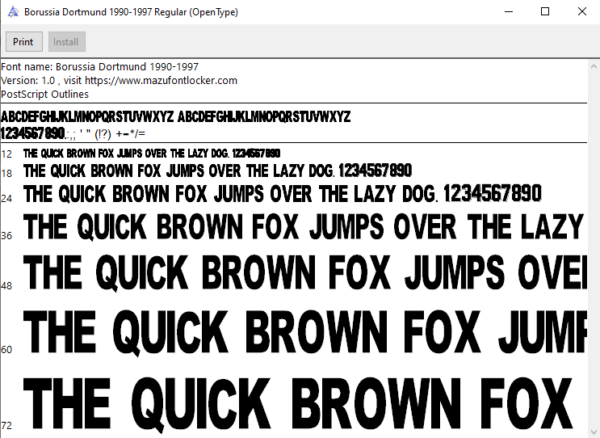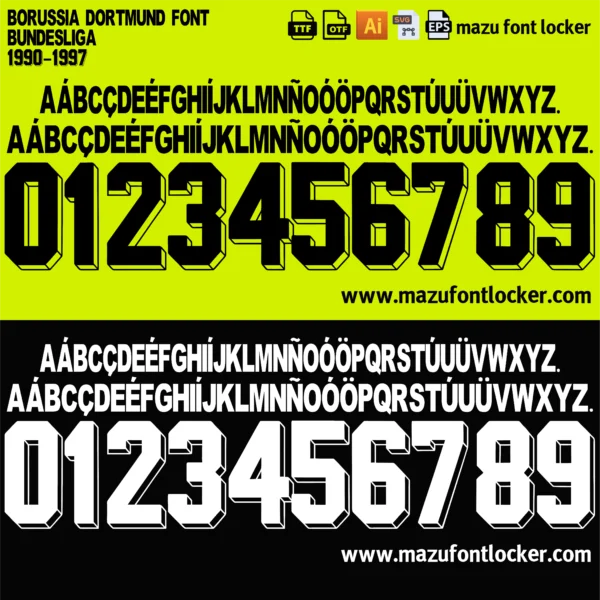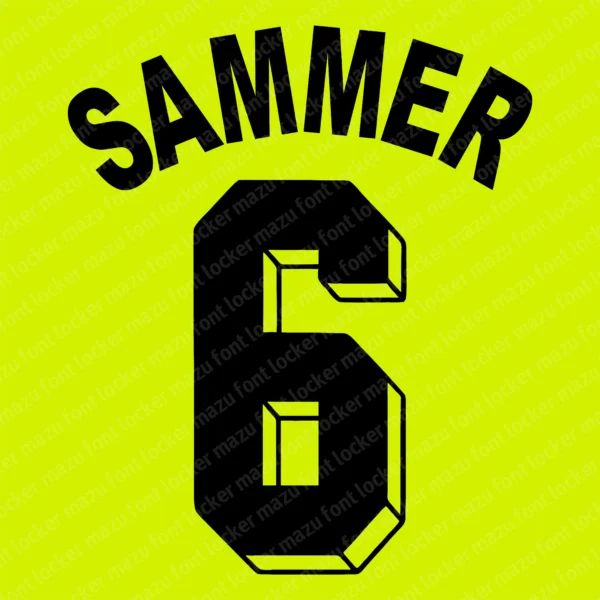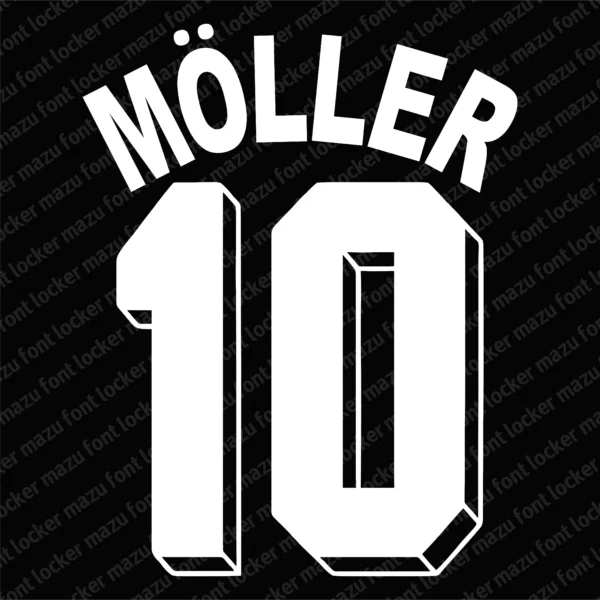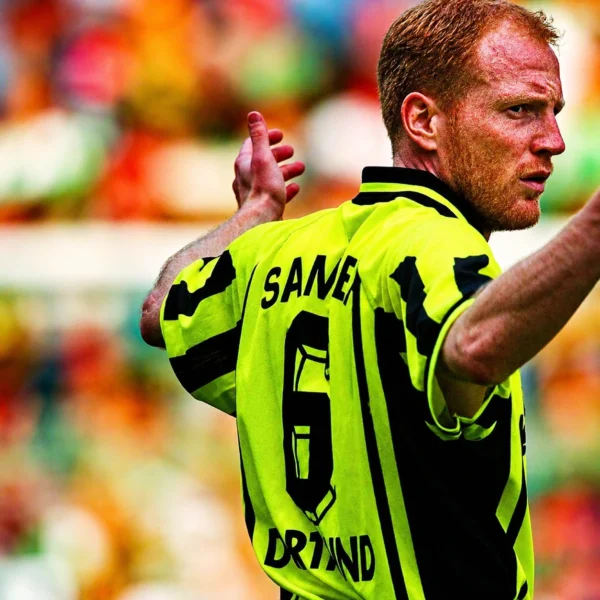
Borussia Dortmund 1990-1997 Font Vector – Stunning Legendary Schwarzgelben Masterpiece
Channeling the fearless BVB spirit with raw German football passion, it delivers a powerful fusion of historic club heritage and timeless Bundesliga dominance. Perfect for premium jersey mockups, football designs, and collector-worthy Borussia Dortmund 1990-1997 art.
Borussia Dortmund 1990-1997 Font Vector – Classic Schwarzgelben Typeface
The Borussia Dortmund 1990-1997 Font Vector is a premium typeface that faithfully recreates the iconic lettering from Borussia Dortmund’s legendary 1990-1997 jerseys. This vector font kit captures the bold, distinctive athletic style that defined one of the most important eras in BVB history.
Designed for football designers, graphic artists, and passionate Dortmund fans, the Borussia Dortmund 1990-1997 Font Vector delivers authentic vintage aesthetics perfect for retro jersey mockups, fan merchandise, posters, social media content, and nostalgic football campaigns.
Why Choose Borussia Dortmund 1990-1997 Font Vector
This font set is highly valued for its historical accuracy and premium quality. Every letter and number has been meticulously recreated to match the original typography used on Borussia Dortmund’s 1990-1997 shirts. It perfectly blends classic German football heritage with modern design usability.
The letterforms feature bold, athletic proportions with a slightly condensed and dynamic stance. The strong, clean strokes deliver powerful visual presence while maintaining excellent readability — ideal for both large squad numbers and detailed graphic applications.
The numerals showcase classic 90s football styling with sharp contours, balanced weight, and authentic athletic proportions, ensuring outstanding results across print and digital media.
• Full uppercase A–Z and numbers 0–9 in the official 1990-1997 BVB style
• Includes precise crest placement used under player numbers on the 1990-1997 kits
Borussia Dortmund 1990-1997 Classic Era
The 1990-1997 period was a golden era for Borussia Dortmund. Under the management of Ottmar Hitzfeld, BVB transformed into a powerhouse of German and European football. The team won two Bundesliga titles (1995 and 1996) and reached the pinnacle by winning the UEFA Champions League in 1997, defeating Juventus in the final at the Olympiastadion in Munich.
During this era, Dortmund wore their iconic yellow and black striped jerseys with bold, distinctive typography that became synonymous with the club’s rise. Legends such as Andreas Möller, Matthias Sammer, Jürgen Kohler, Stéphane Chapuisat, and Karl-Heinz Riedle graced the pitch wearing these kits. The passionate Yellow Wall at the Westfalenstadion became one of the most feared atmospheres in world football.
This period marked Borussia Dortmund’s emergence as one of Europe’s elite clubs and remains deeply cherished by fans worldwide.
The Borussia Dortmund 1990-1997 Font Vector is an independently developed typeface package. It has been carefully crafted to replicate the official lettering from Borussia Dortmund’s iconic 1990-1997 jerseys. Perfect for artistic projects, fan creations, and football design enthusiasts.